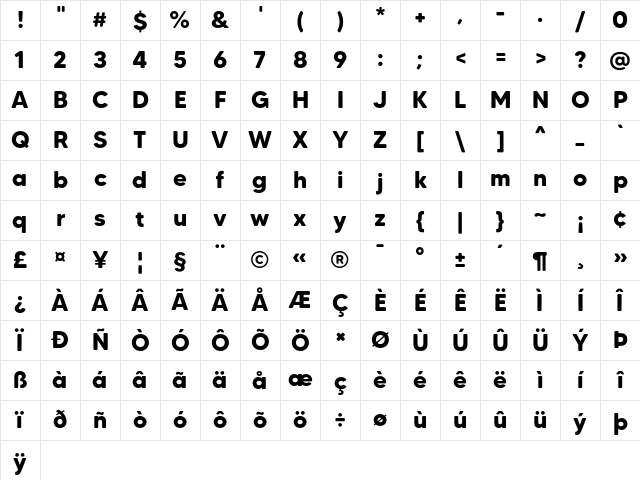
Complete MADE Tommy Soft Bold glyph index. Displaying only characters natively supported by MADE Tommy Soft Bold font.
MADE Tommy Soft is a composed and adaptable typeface that performs quietly and consistently across a wide range of design contexts. Its bold stroke weight gives it real presence on the page.